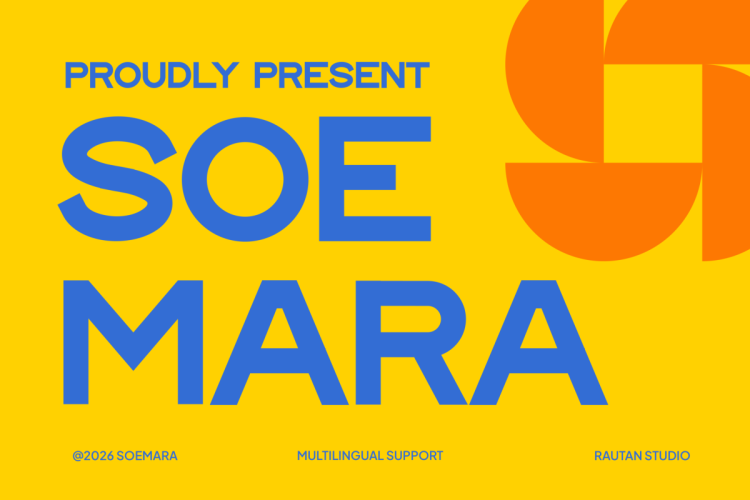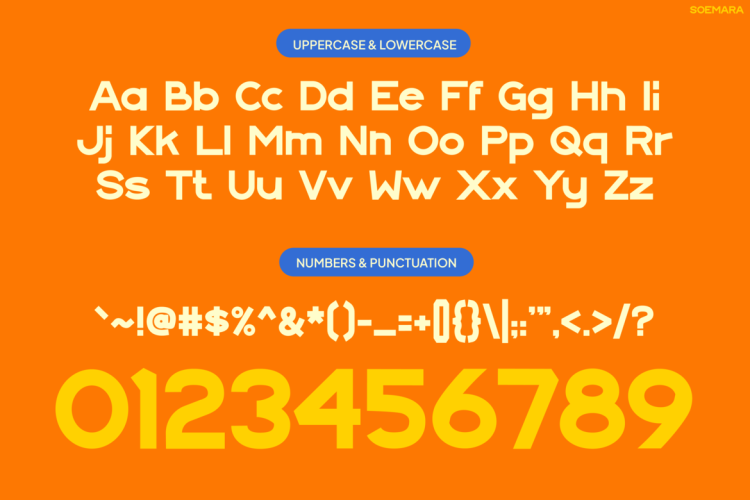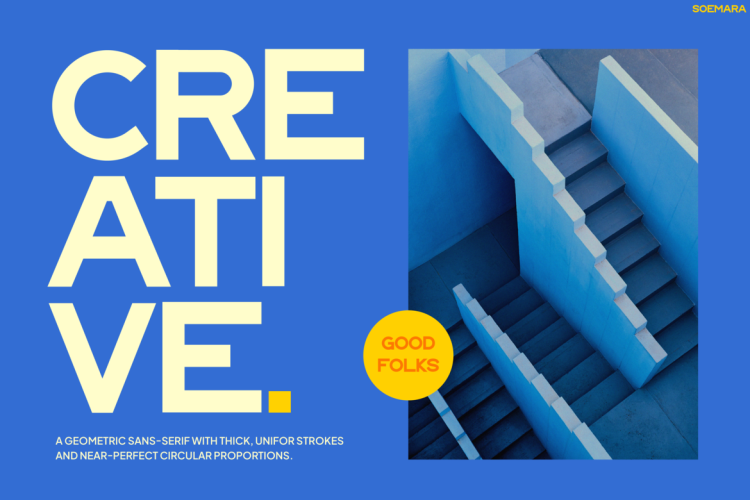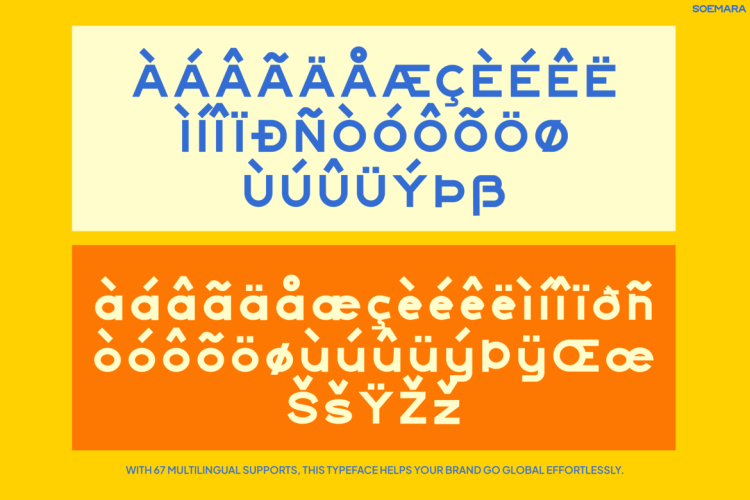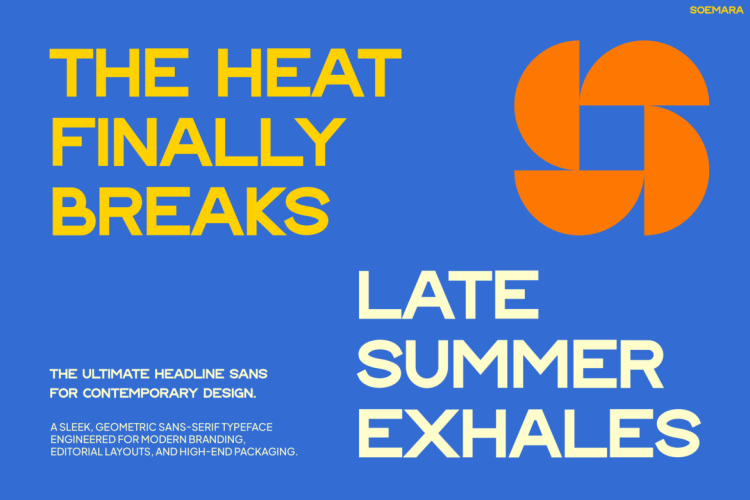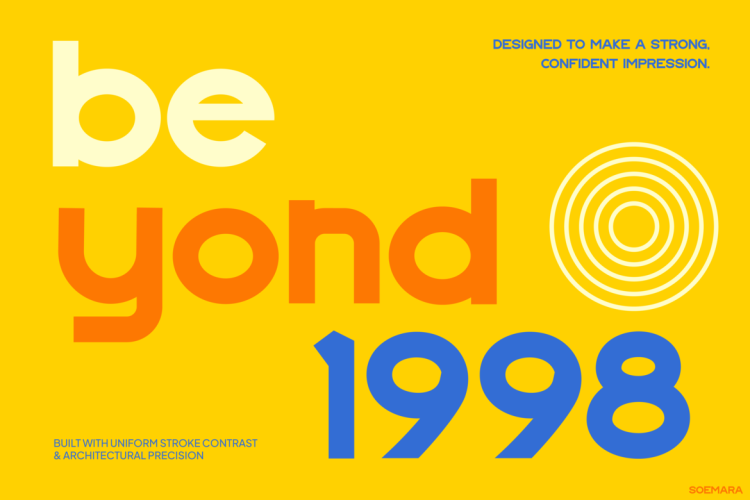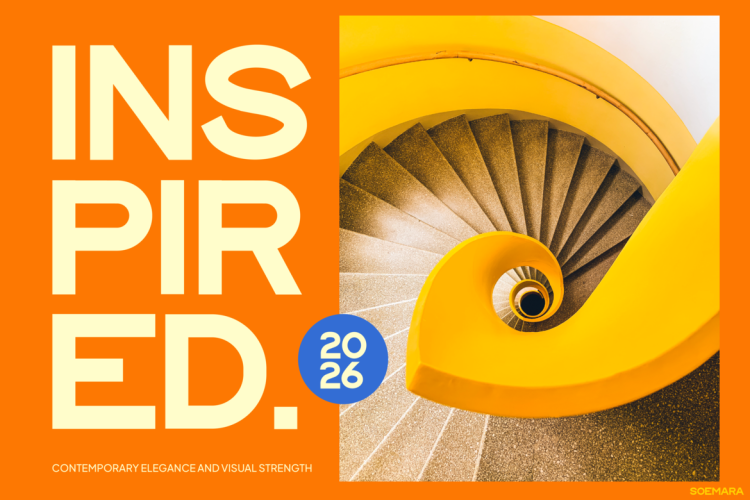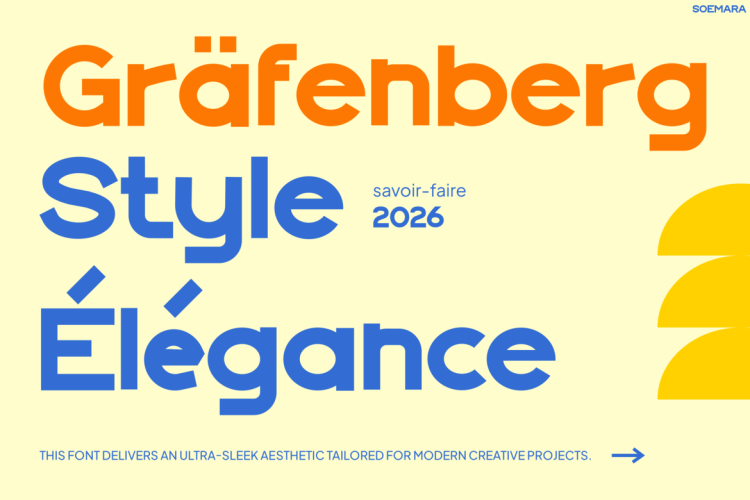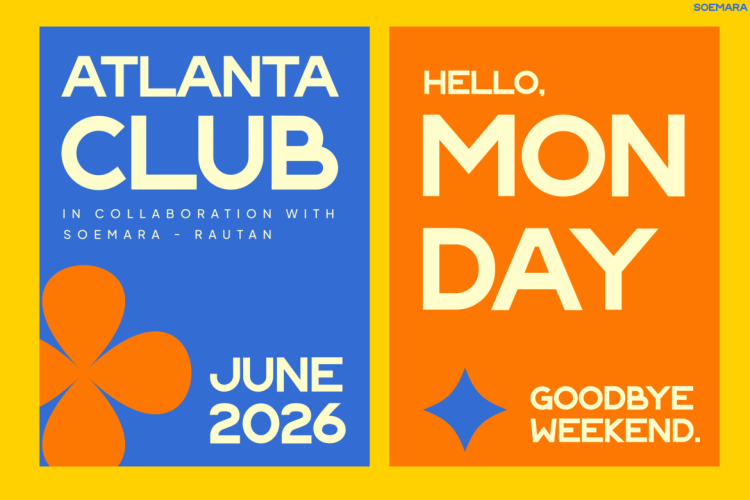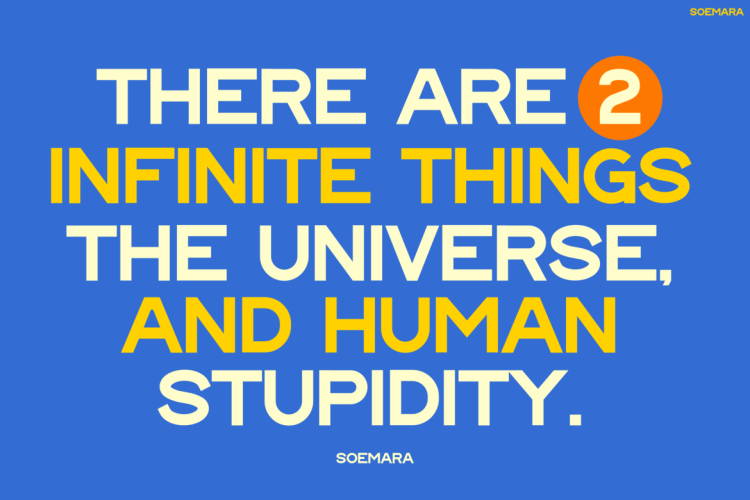
SOEMARA โ Bold, Bright & Modern
Modern Font SOEMARA bursts onto the scene with unapologetic energy and color. To start, its chunky rounded letterforms feel playful yet confident. At the same time, the geometric structure keeps everything sharp and clean. This combo gives SOEMARA a fresh, youthful edge. Moreover, the font pairs perfectly with bold color blocks and punchy layouts. It’s built for attention-grabbing headlines and standout branding. Additionally, SOEMARA supports 67 languages with a full extended character set. This means it’s ready for global campaigns right out of the box. In short, SOEMARA doesn’t whisper โ it shouts confidence in every letter.
Modern Font SOEMARA Perfect For
Above all, this font suits streetwear branding, event posters, and music festival visuals. It also works great for social media graphics and bold marketing campaigns. Furthermore, it’s ideal for youth-focused brands, sportswear labels, and creative agency portfolios.
Who Should Grab This
In particular, graphic designers, brand strategists, and content creators will love SOEMARA’s versatility. Likewise, startups and modern lifestyle brands chasing a fearless, energetic identity will find it perfect. Similarly, anyone designing bold posters or vibrant campaigns will appreciate its punch.